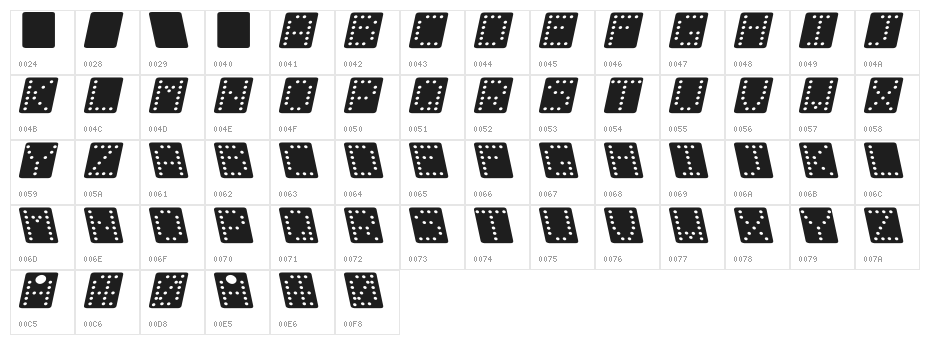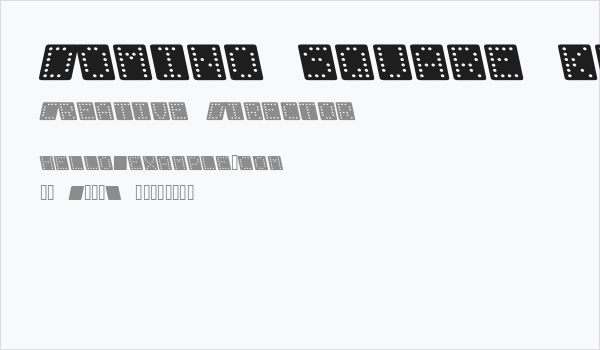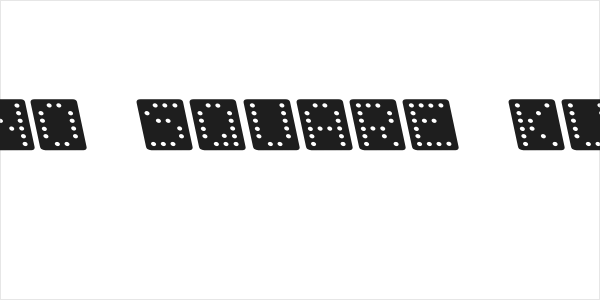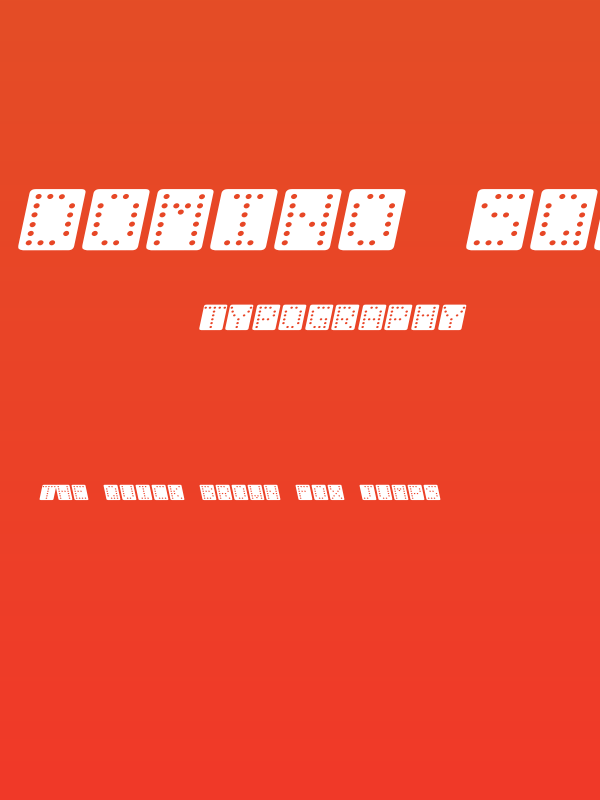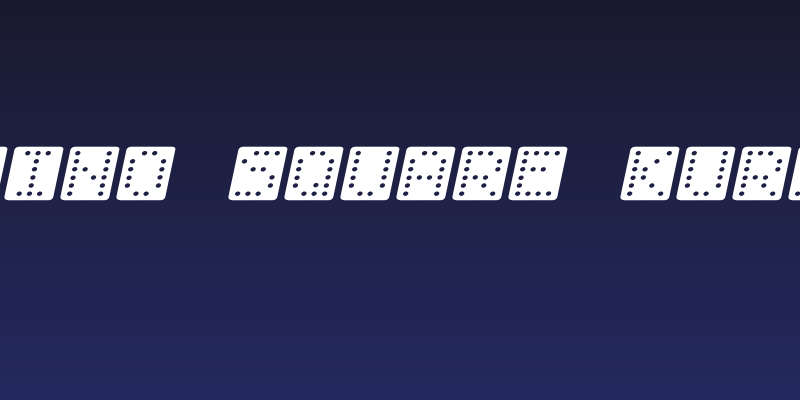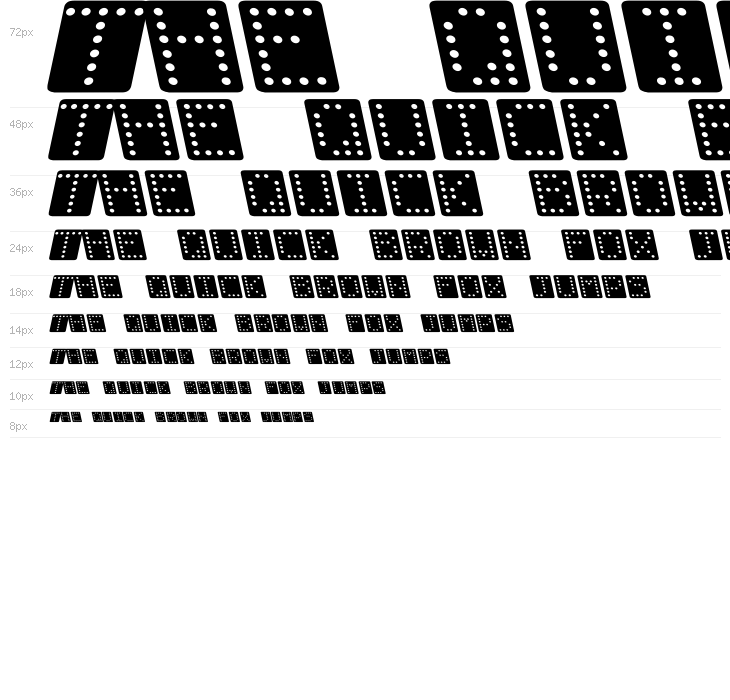
Domino square kursiv Font
Domino square kursiv Description
This font features a unique design where each character is styled to resemble a domino tile. The letters are bold and square-shaped, with a distinct slant that gives them a dynamic, italicized appearance. Each character is filled with a pattern of dots, mimicking the pips found on dominoes. The uppercase and lowercase letters maintain this playful, geometric style, making it highly decorative. The numbers and special characters follow the same theme, ensuring a cohesive look across all glyphs. This font is perfect for projects that require a fun and engaging visual element.
| Use Case | Logos, Posters, Creative Displays |
| Proposed Projects | Ideal for game-themed designs, playful branding, children's books, and creative posters. |